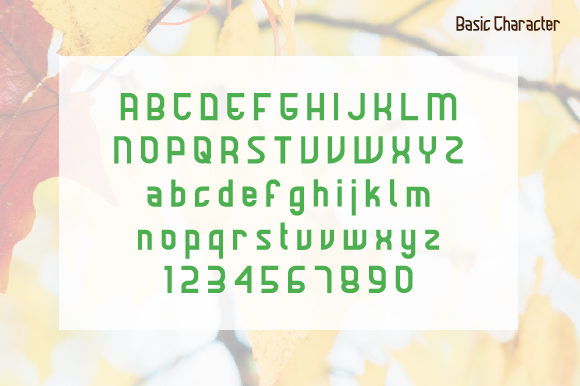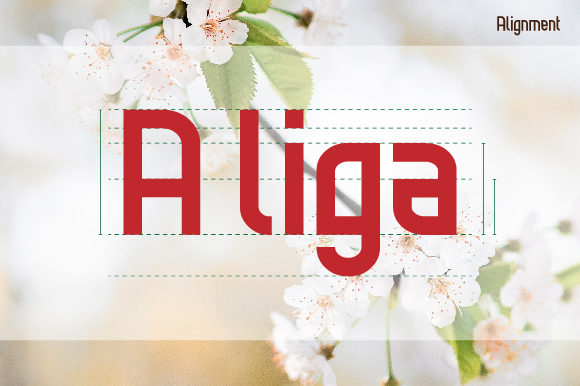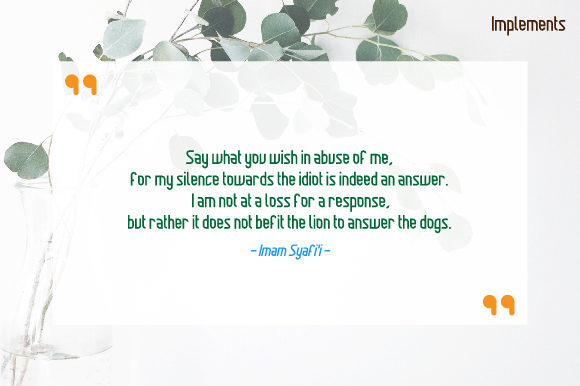
Introducing the Daun Family Font: A Playful and Versatile Typeface
The Daun Family Font is an exceptional addition to the world of typography, offering a range of creative possibilities for designers and crafters. This amazing font family comprises six unique weights, which can be combined seamlessly to create a playful and visually appealing design. Whether you’re looking to create a distinctive logo, an eye-catching poster, a compelling presentation, or any other design project, the Daun Family Font is the perfect choice.
What Makes the Daun Family Font Stand Out?
The Daun Family Font is designed to provide a high level of versatility, making it suitable for a wide range of design applications. Here are some key features that set it apart:
- Six Unique Weights: The Daun Family Font offers six distinct weights, ranging from light to bold, allowing you to experiment with different styles and combinations to achieve the desired visual effect.
- Playful and Elegant: The font’s playful and elegant design makes it perfect for creative projects that require a touch of sophistication and whimsy.
- Highly Legible: The Daun Family Font is designed to be highly legible, ensuring that your message is conveyed clearly and effectively, even at smaller font sizes.
- OpenType Features: The font includes OpenType features, such as ligatures and stylistic alternates, which provide additional creative options and flexibility.
Design Possibilities with the Daun Family Font
The Daun Family Font offers endless design possibilities, making it an excellent choice for various projects, including:
- Logo Design: Create a unique and memorable logo that stands out from the crowd with the Daun Family Font’s playful and elegant design.
- Poster Design: Design eye-catching posters that grab attention with the font’s bold and playful style.
- Presentation Design: Add a touch of sophistication and professionalism to your presentations with the Daun Family Font’s elegant and legible design.
- Branding and Packaging: Use the Daun Family Font to create a consistent brand identity across various packaging materials, such as business cards, brochures, and product labels.
Tips for Using the Daun Family Font
To get the most out of the Daun Family Font, here are some tips to keep in mind:
- Experiment with Different Weights: Combine different weights to create visual interest and hierarchy in your design.
- Use OpenType Features: Take advantage of the font’s OpenType features to add an extra layer of creativity to your design.
- Pair with Other Fonts: Pair the Daun Family Font with other fonts to create a unique and visually appealing typography combination.
The Daun Family Font is an exceptional font family that offers a range of creative possibilities for designers and crafters. With its six unique weights, playful and elegant design, and highly legible style, it’s perfect for various design applications, from logo design to presentation design. By following the tips outlined above, you can unlock the full potential of the Daun Family Font and create stunning designs that showcase your creativity.